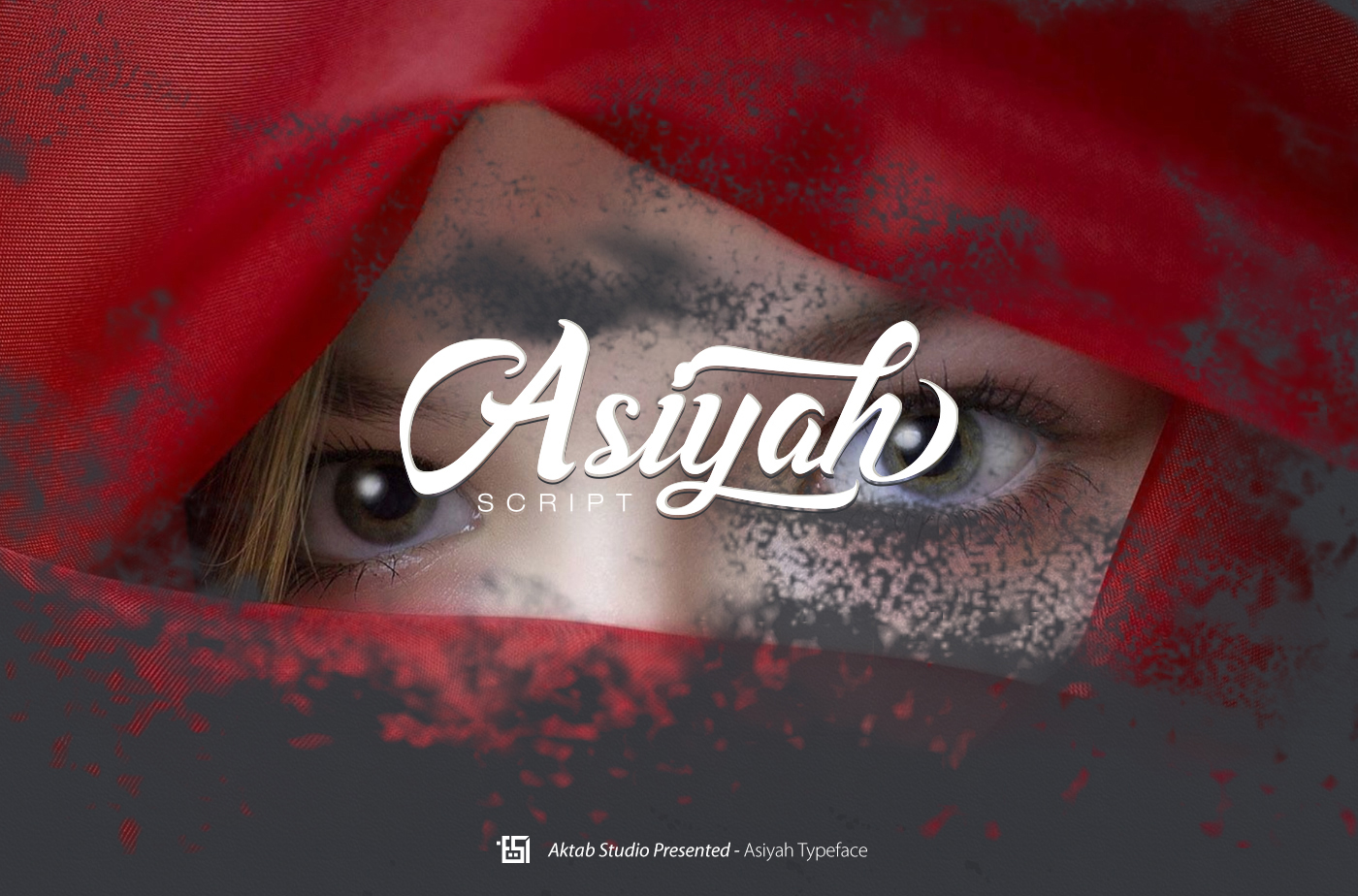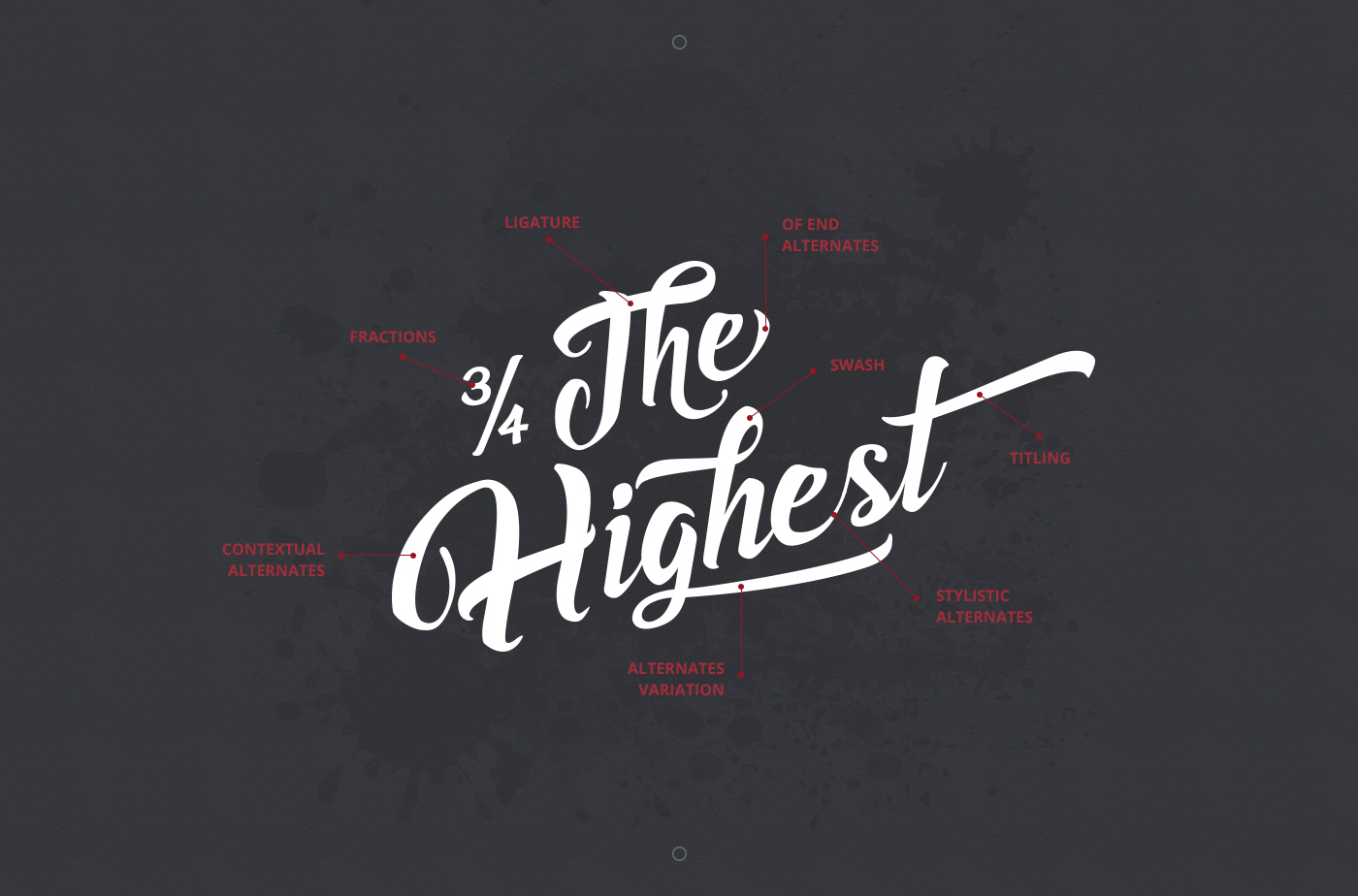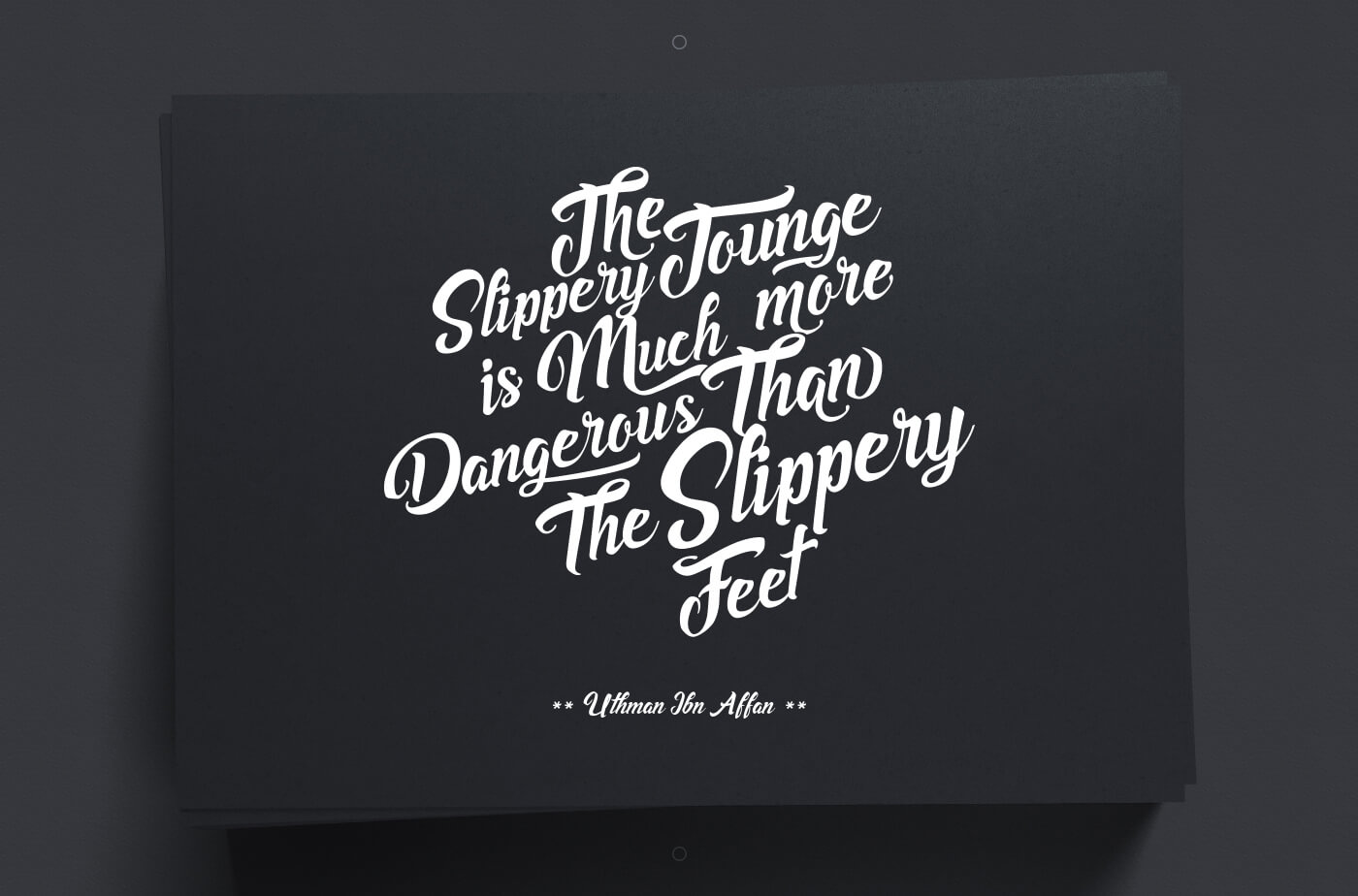
Asiyah Script Free Font
Asiyah Script Free Font is beautifully crafted in handwritten style. It looks great, it’s very adaptable as it comes with cool ligatures and some nice end alternates. It will be great for logos, posters, big headlines and other graphic projects that could fit with this kind of font.
Asiyah Free Font
Asiyah free font
Asiyah Free Font